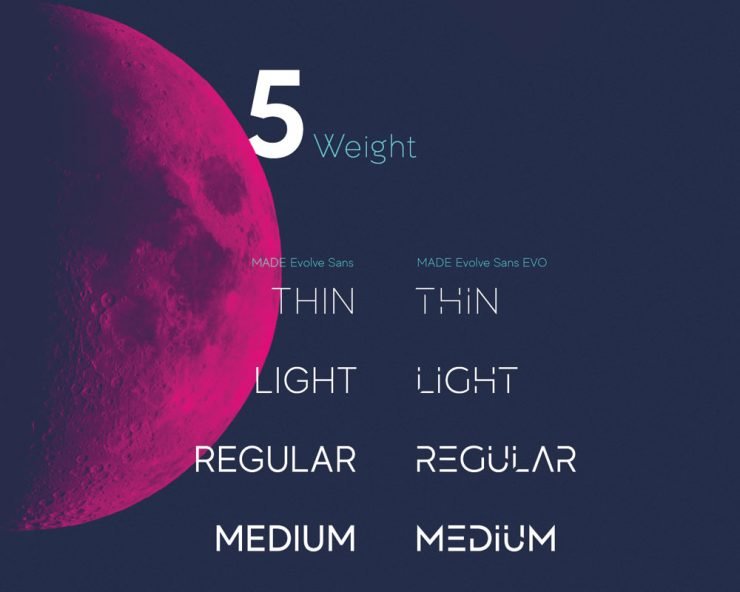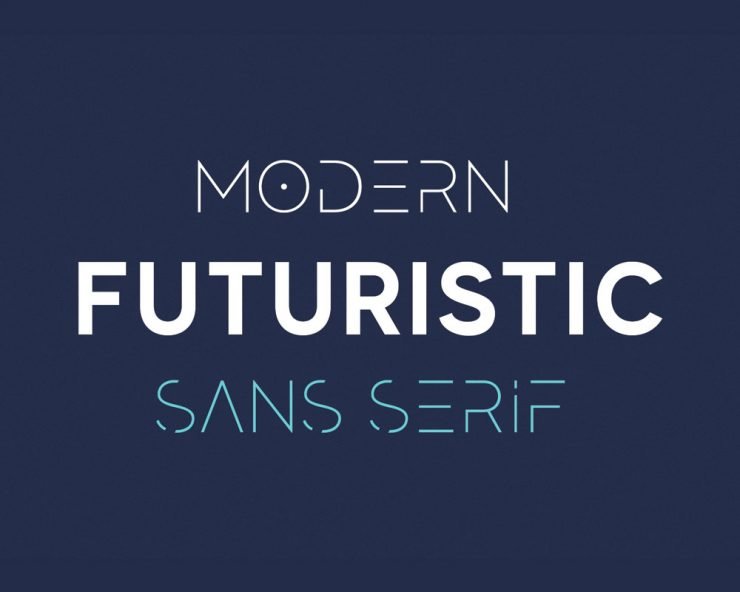
MADE Evolve Free Sans Font
MADE Evolve Free Sans Font is an advanced, futuristic and modern sans serif font with balanced and modern design combination.
It is created by Made Type. Evolve has ten fonts in which five are sans serif weight and five weights with innovative caps for creating extra variability. This perfect and beautiful sans font permit you to branch out your branding pictorial identity, logos, poster, headlines, magazines covers and so on. This free sans serif font is for both personal and commercial use.